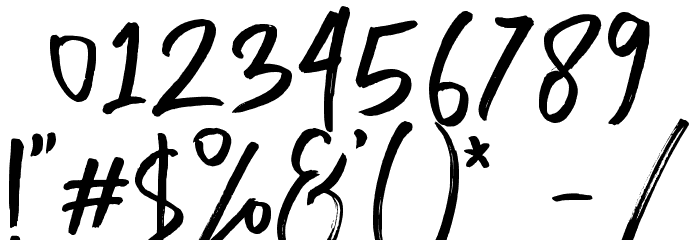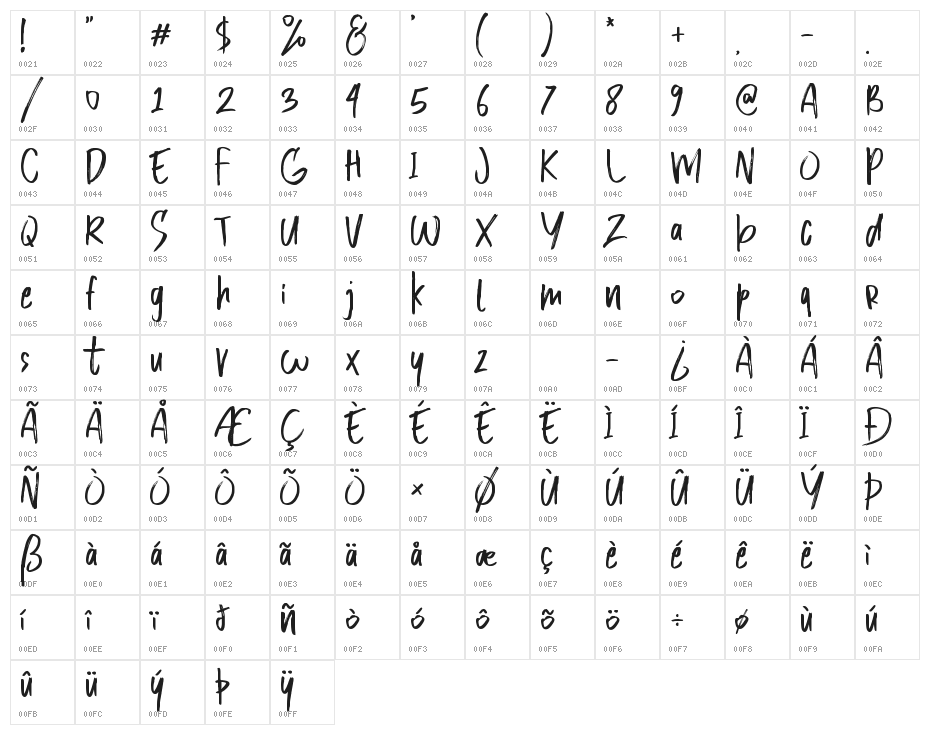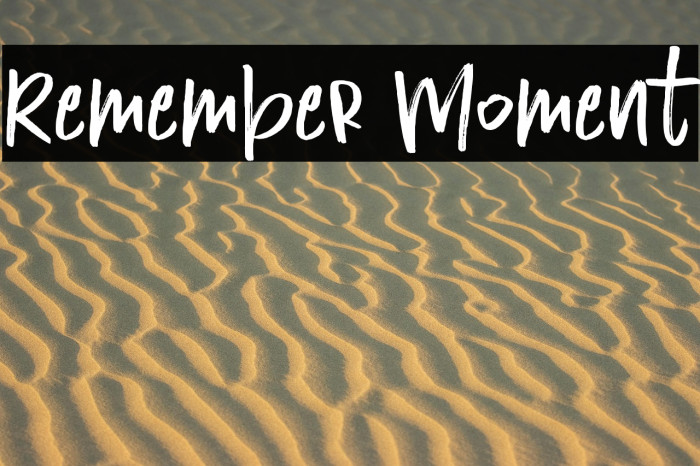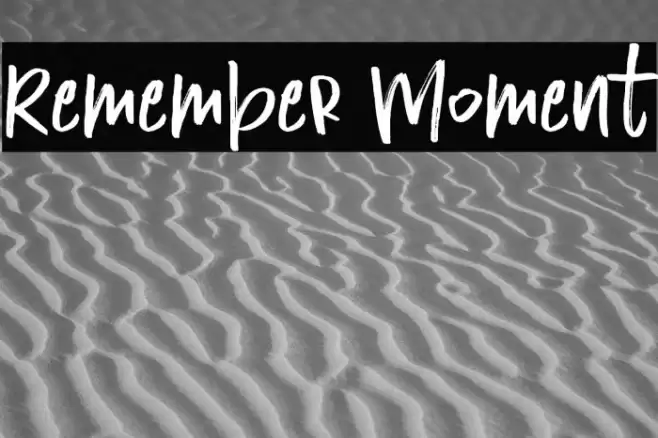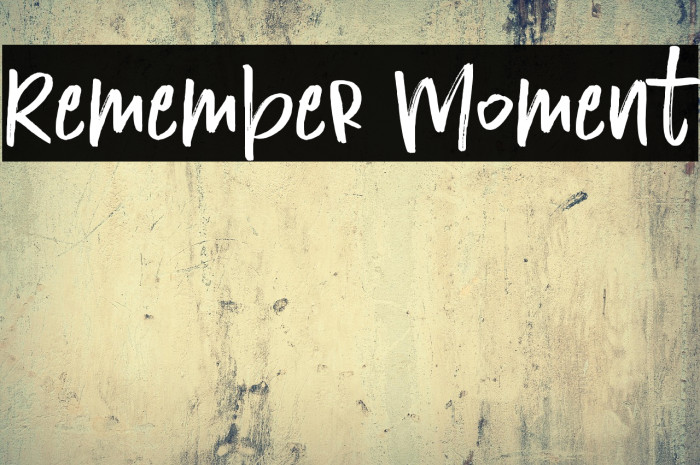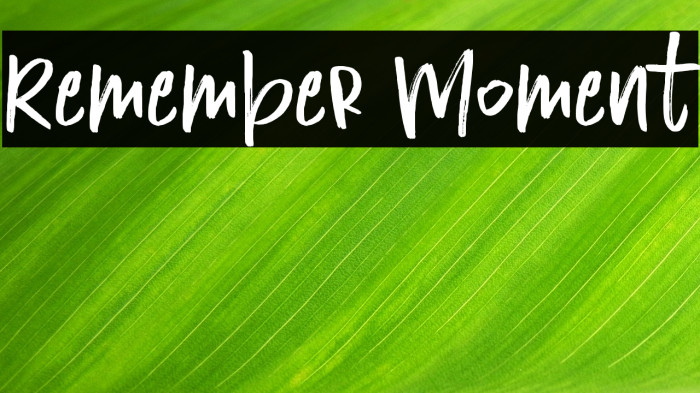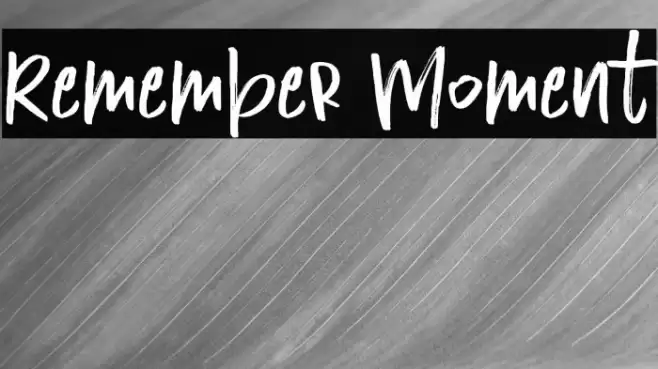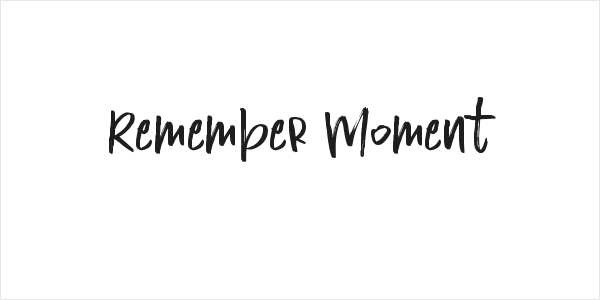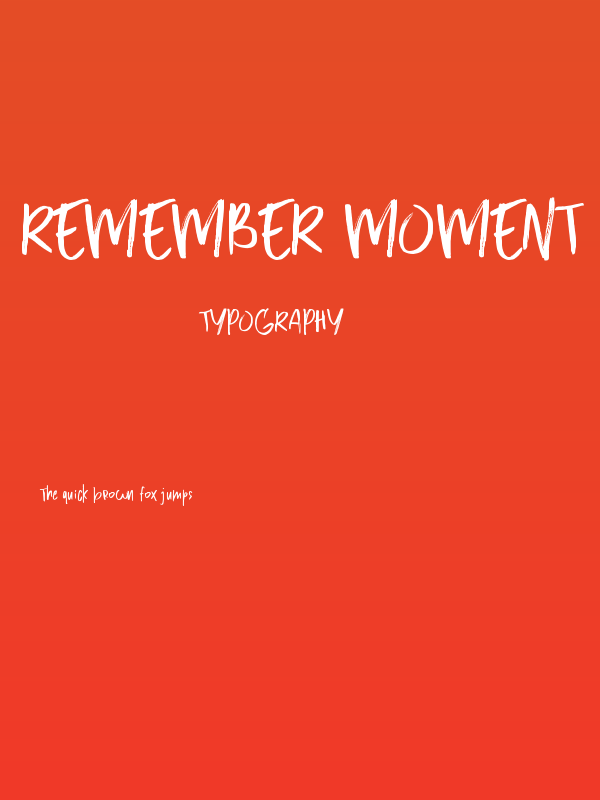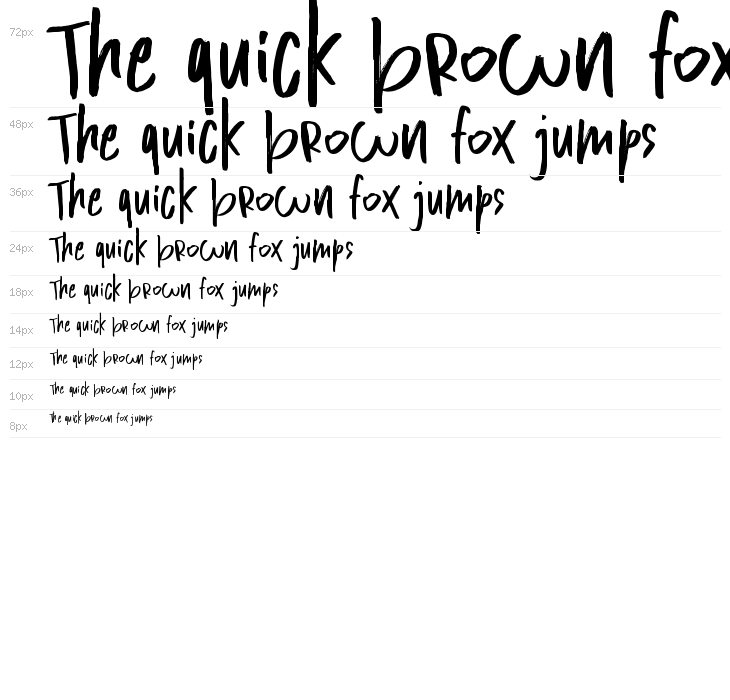
Remember Moment Font
Remember Moment Description
This font exudes a lively and dynamic energy, characterized by its bold, brush-like strokes that give it a hand-painted appearance. The letters are slightly irregular, adding a personal and informal touch, while maintaining legibility. The uppercase and lowercase letters are distinct, with a playful yet sophisticated style. Numbers and special characters follow the same energetic design, making the font versatile for various applications. Its artistic flair makes it ideal for creative projects that require a personal and expressive touch.
| Proposed Projects | Ideal for branding, posters, social media graphics, and creative invitations. |